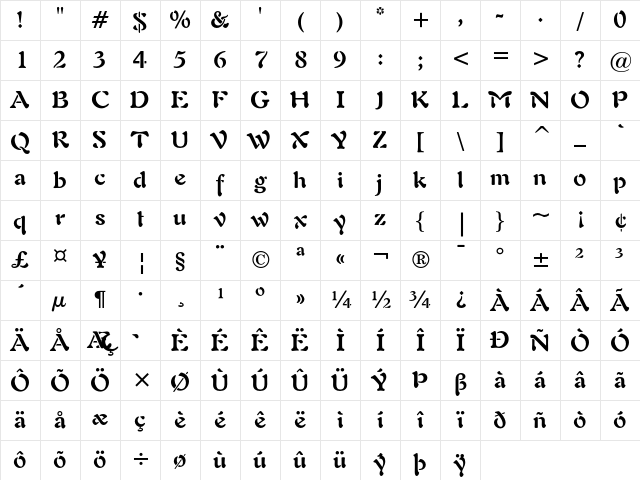
Freeform 721 Bold
Freeform 721 Family
Freeform 721 Bold
Design Context for Freeform 721
Freeform 721 is a composed and adaptable typeface that performs quietly and consistently across a wide range of design contexts. Its bold stroke weight gives it real presence on the page.
Pro Tip: Use Freeform 721 in both headline and body roles to test its range before committing to a single application.